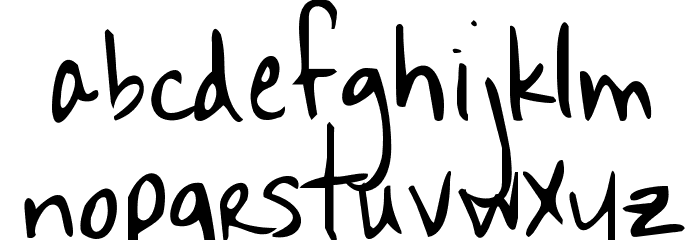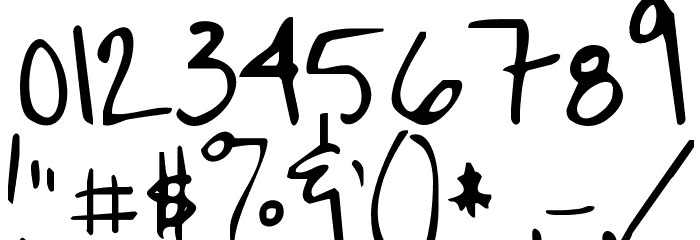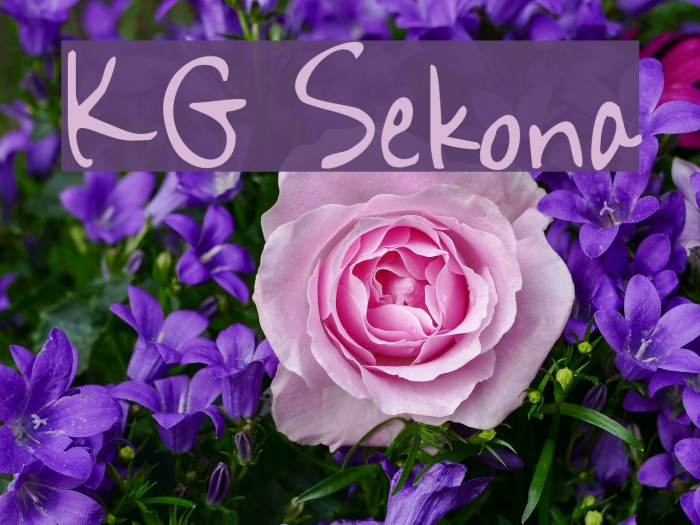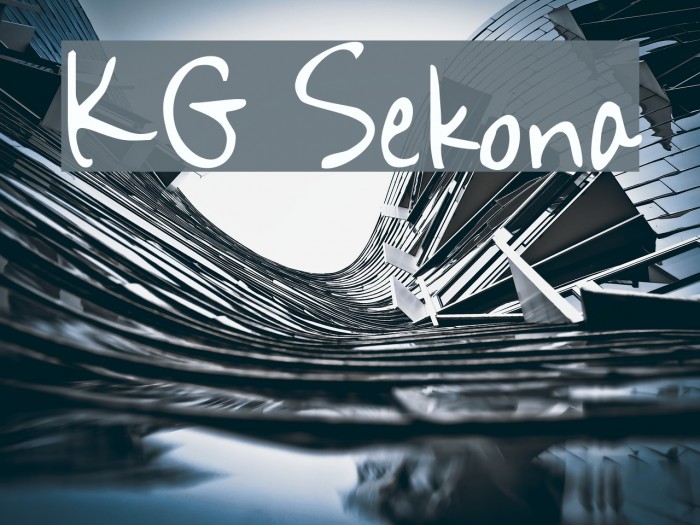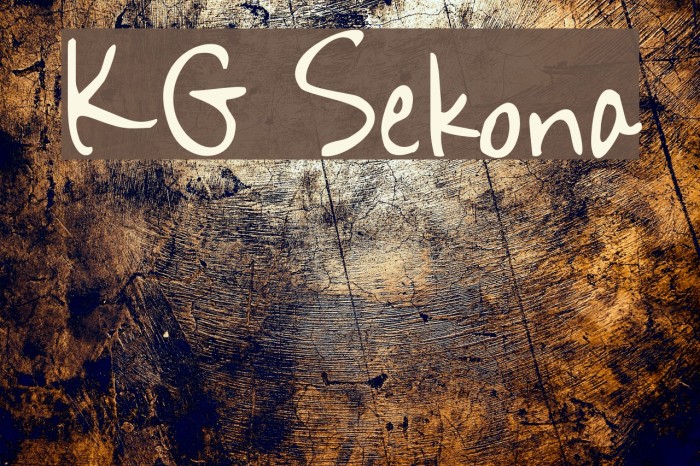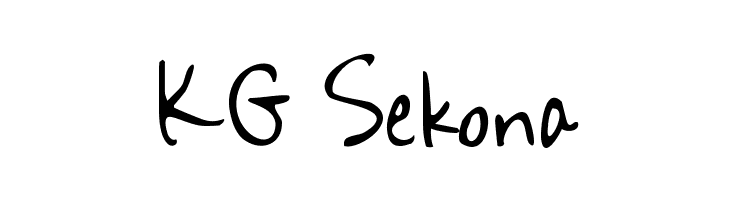
KG Sekona Font
This font exudes a playful and casual handwritten style, characterized by its uneven strokes and organic flow. The letters are slightly slanted, giving a sense of movement and informality. Uppercase and lowercase letters maintain a consistent style, with rounded edges and varying line thicknesses that add to its charm. The numbers and special characters follow the same whimsical design, making it suitable for creative and informal applications. The overall appearance is approachable and friendly, ideal for projects that require a personal touch.
A playful, casual handwritten font with uneven strokes and organic flow.
- Proposed Projects: Ideal for greeting cards, children's books, personal blogs, and informal branding.
- Overall Style: Casual
- Use Case: Headlines, Informal text, Creative projects